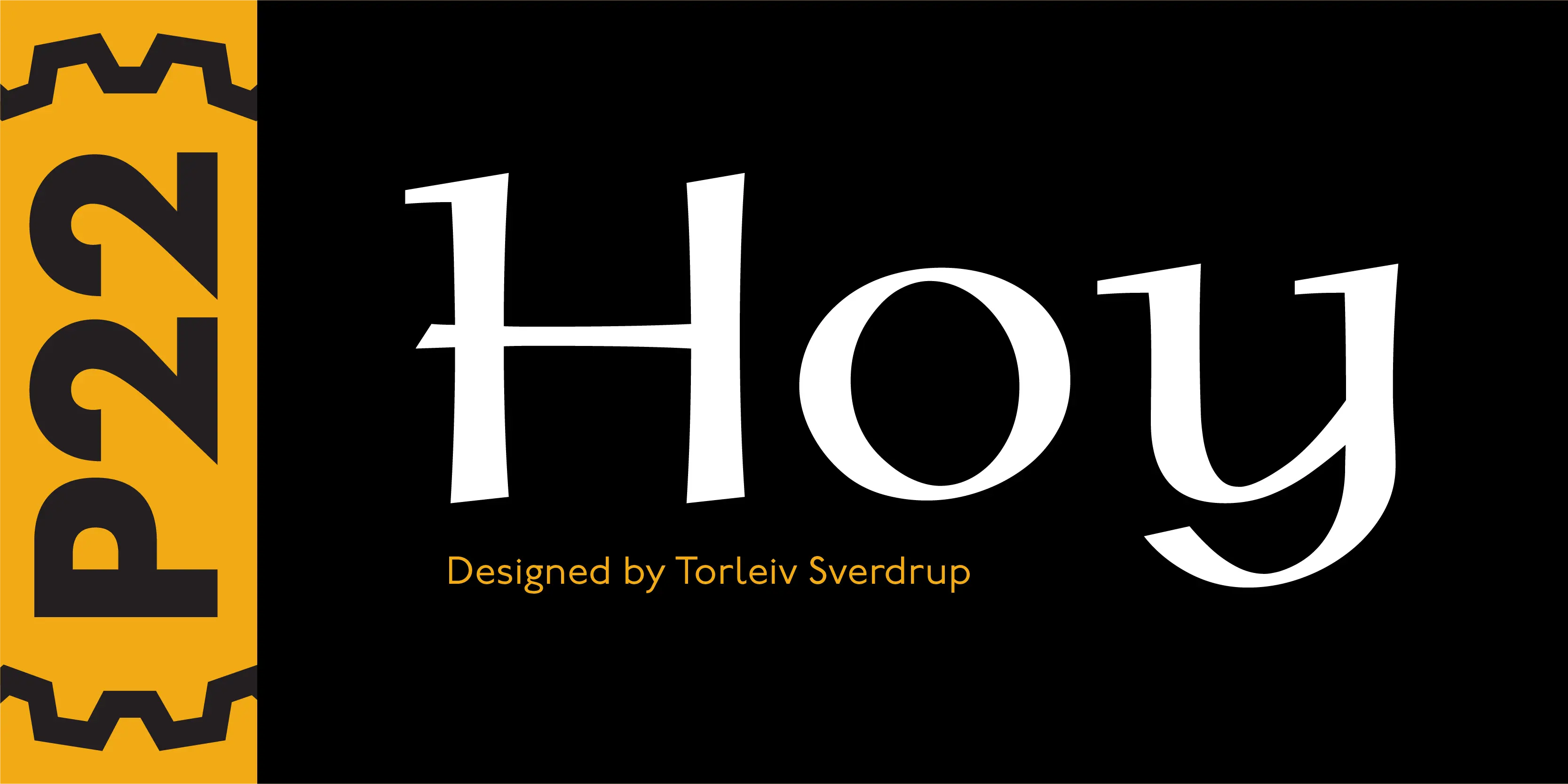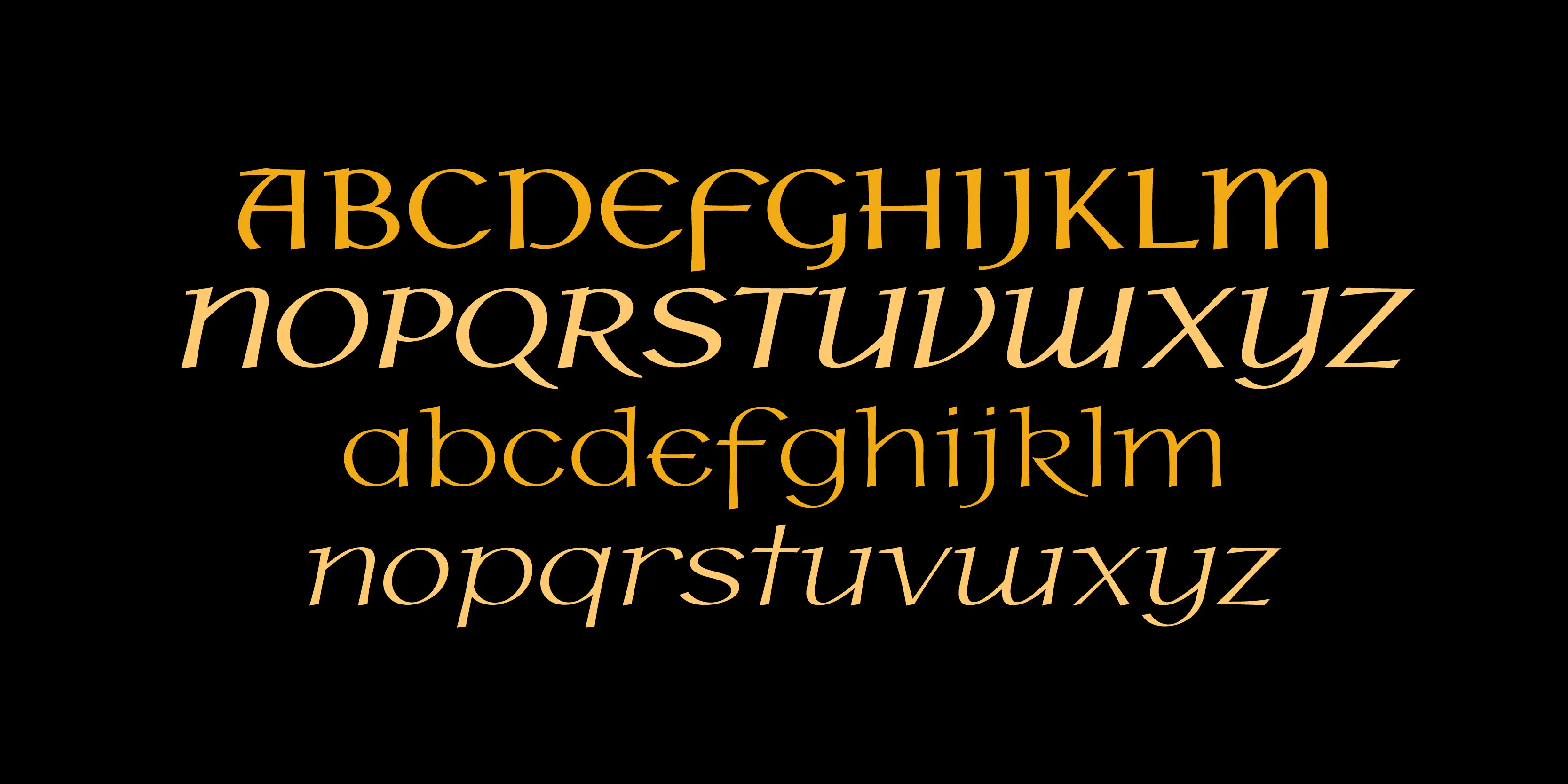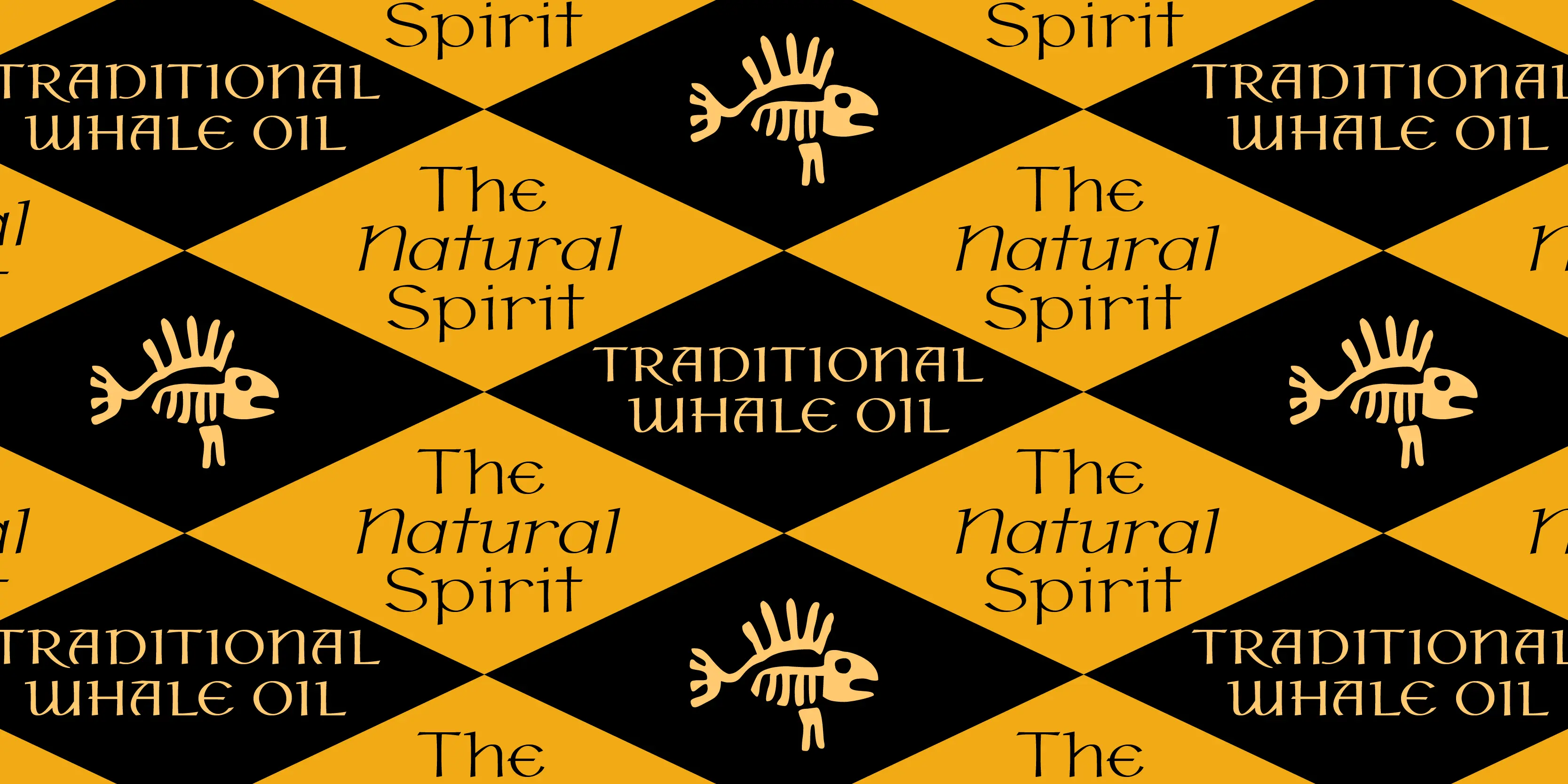
Hoy Font Family
Hoy
Hoy is a decorative font whose name derives from one of the Orkney Islands. Inspired by the wonderful encounter between the Celtic and Norse cultures in this specific geographic location, the font has adapted some of the features of the Insular half-uncial. It is playful and relaxed, and easily recognizable by its roundness.